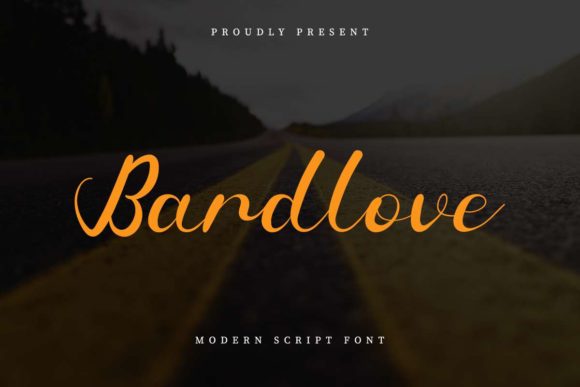
Embark on a Typographic Adventure with Bardlove: The Quintessential Handwritten Font for a Memorable Dining Experience
In the realm of culinary artistry, presentation is paramount. Every element, from the carefully crafted dishes to the ambiance of your establishment, plays a vital role in creating an unforgettable dining experience. Amidst this symphony of flavors and aesthetics, the font you choose for your restaurant menu holds immense power. Allow us to introduce Bardlove, an exquisite handwritten font that will elevate your menu design to new heights.
Bardlove: A Culinary Masterpiece
Bardlove is not just a font; it's an expression of culinary excellence. Its meticulously designed strokes, reminiscent of a master chef's delicate touch, will leave an indelible mark on your customers' minds. Bardlove's contemporary flair, infused with a touch of classic elegance, perfectly captures the essence of modern dining. It's a font that speaks to the heart, inviting your patrons to savor every moment of their gastronomic journey.
Unleash the Power of Bardlove
With Bardlove as your culinary companion, your menu will transform into a captivating masterpiece. Its versatile nature allows it to seamlessly adapt to any restaurant concept, from casual bistros to fine dining establishments. Picture your menu adorned with Bardlove's enchanting characters, each letter flowing effortlessly into the next, creating an aura of sophistication and allure. Bardlove has the power to turn your menu into an extension of your culinary vision, enticing your customers to embark on a sensory adventure like no other.
A Symphony of Flavors, Perfectly Paired
Bardlove's culinary prowess extends beyond its visual appeal. This font possesses an uncanny ability to harmonize with the flavors of your dishes. Its elegant curves mirror the delicate nuances of your culinary creations, while its bold strokes embody the intensity of your signature recipes. Bardlove is a font that understands the language of food, speaking to your customers on a deeper level, tantalizing their taste buds and leaving them craving more.
Bardlove: The Ultimate Culinary Companion
In a world where first impressions matter, Bardlove is your secret weapon. Its ability to transform your menu into a work of art will leave a lasting impression on your customers, turning them into loyal patrons. Bardlove is more than just a font; it's an investment in your restaurant's success. It's a culinary companion that will accompany you on your journey to gastronomic greatness, helping you create a dining experience that lingers long after the last bite is taken.